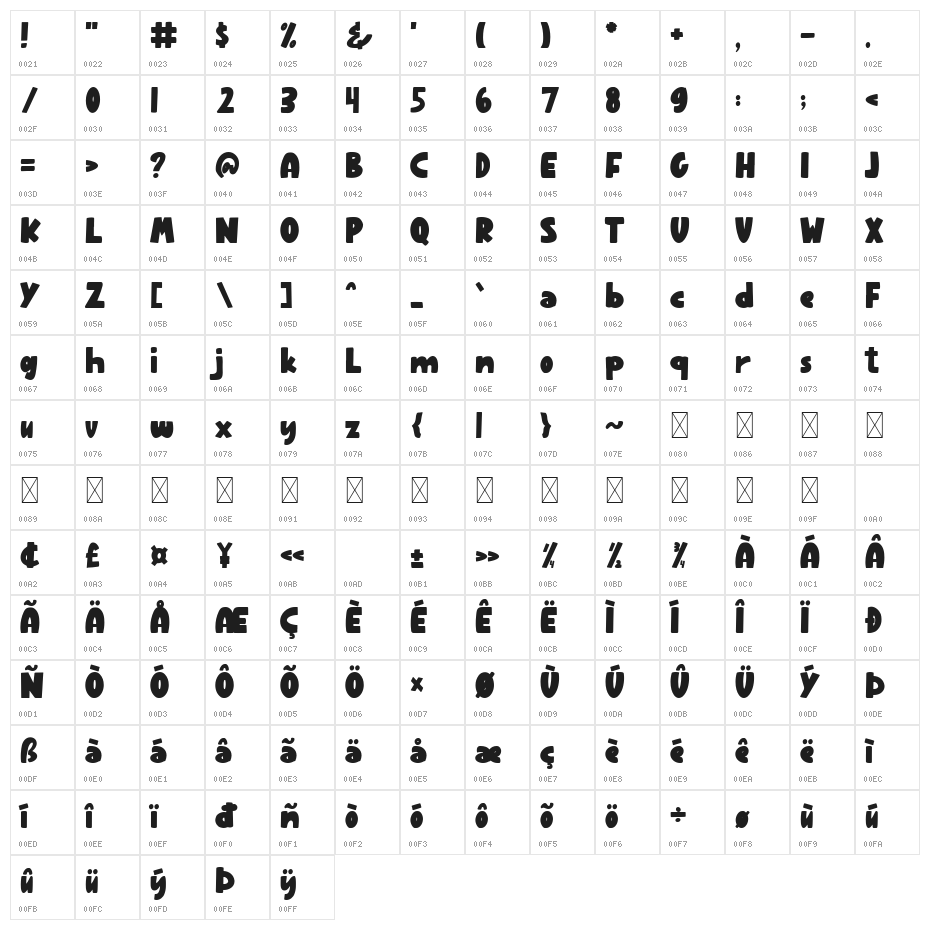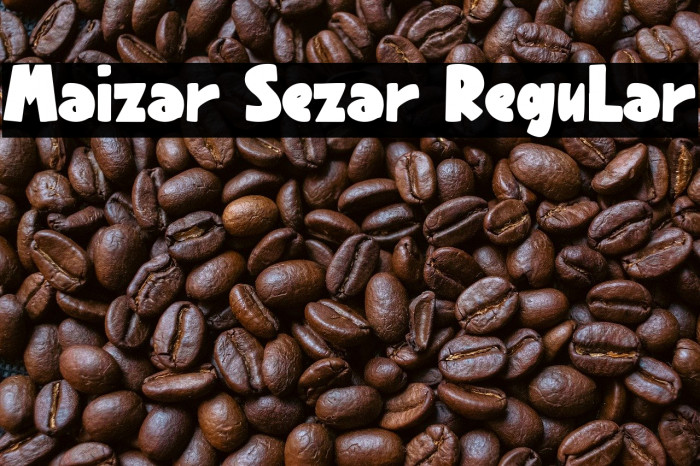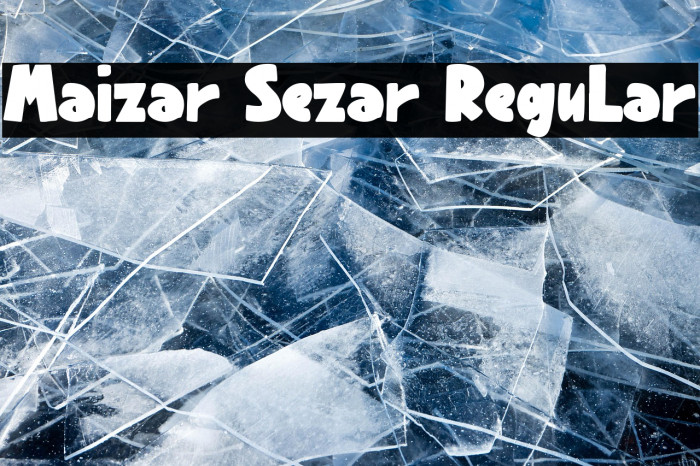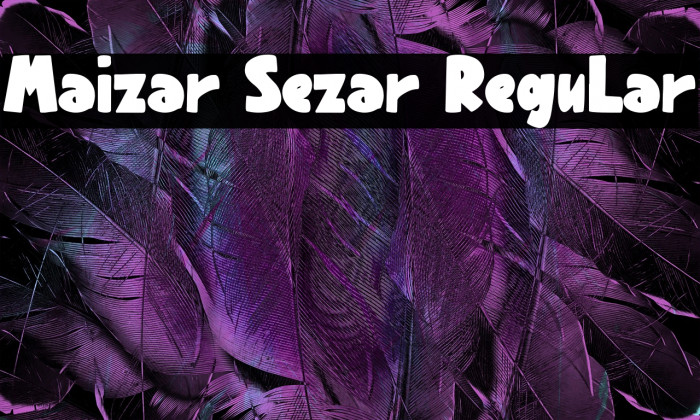
Maizar Sezar Regular Font
Maizar Sezar Regular Description
This font features a bold and playful design with thick, rounded strokes that give it a friendly and approachable appearance. The characters are slightly irregular, adding a whimsical touch that enhances its charm. The uppercase and lowercase letters maintain a consistent weight, creating a cohesive look across the alphabet. Numbers and special characters are equally bold, ensuring readability and visual impact. Its unique style makes it suitable for creative projects that require a fun and engaging typeface.
| Proposed Projects | Ideal for children's books, playful branding, posters, and creative invitations. |